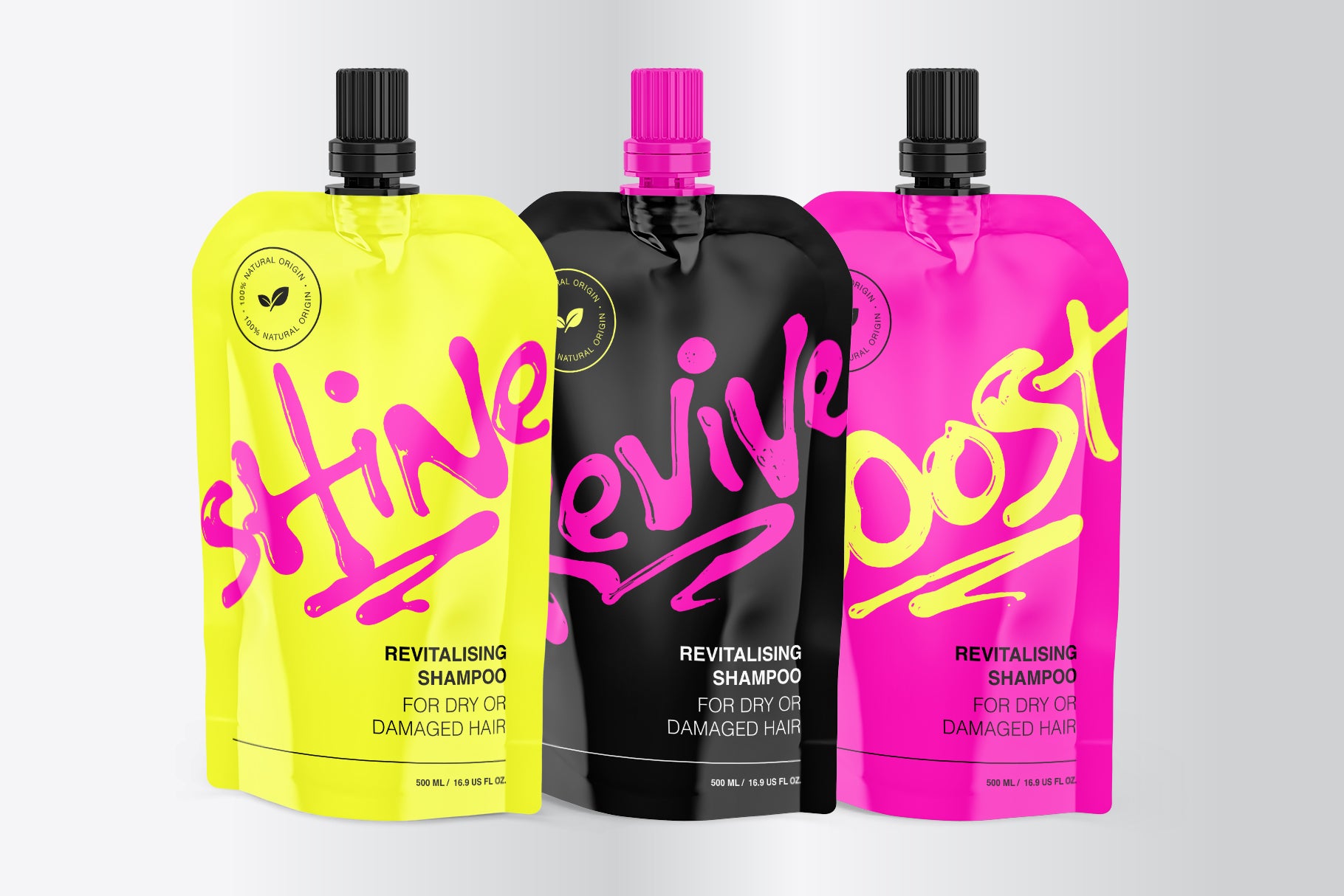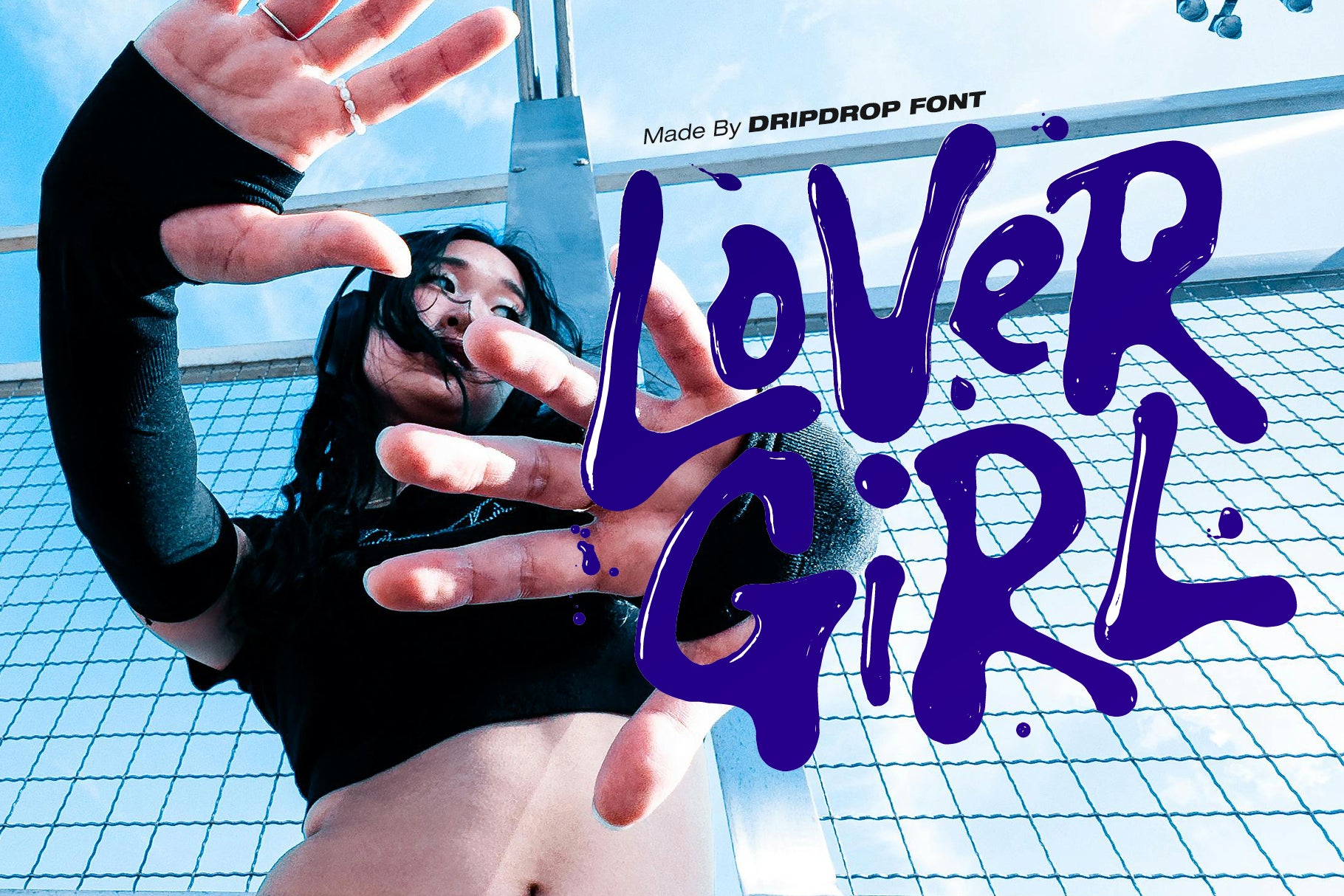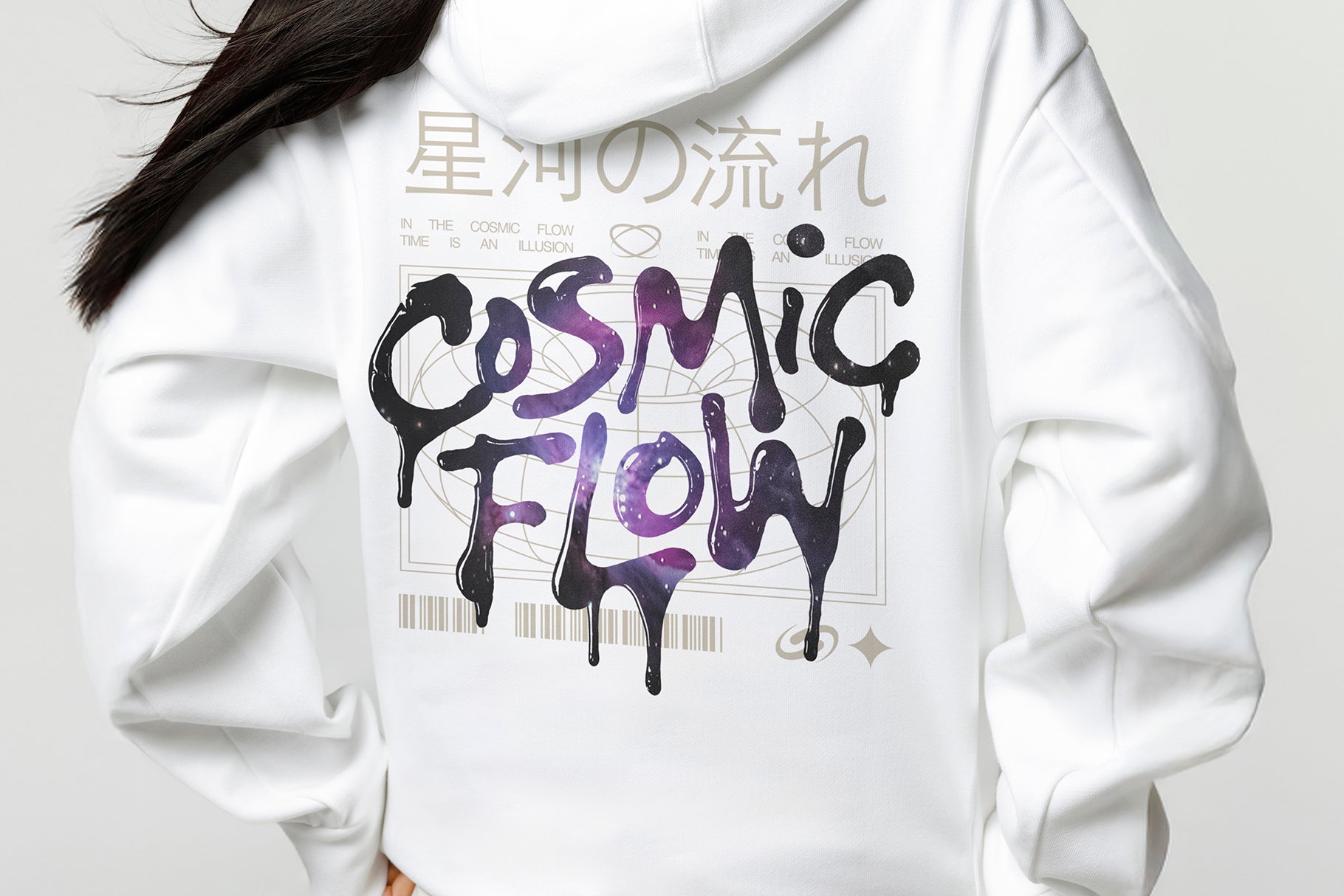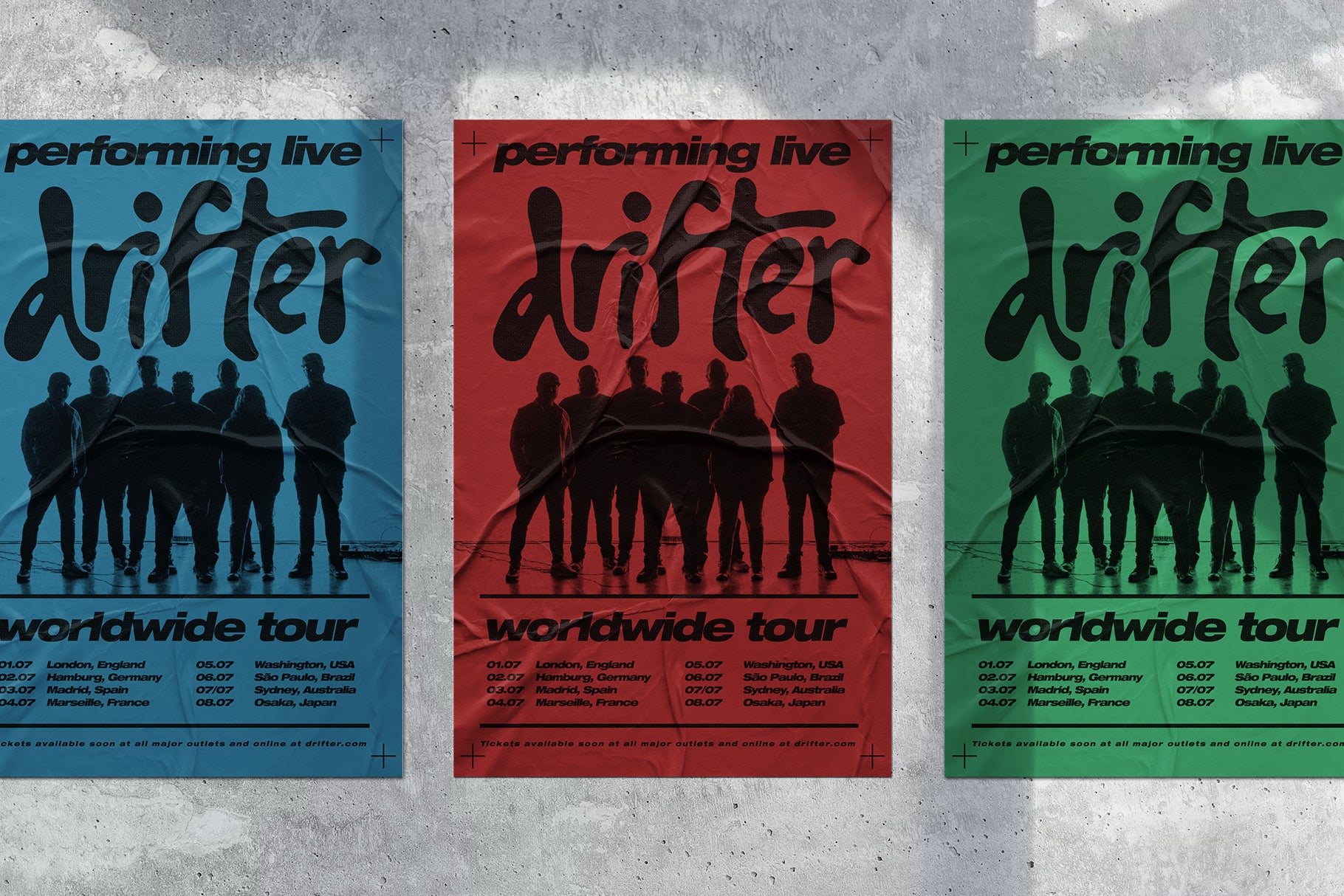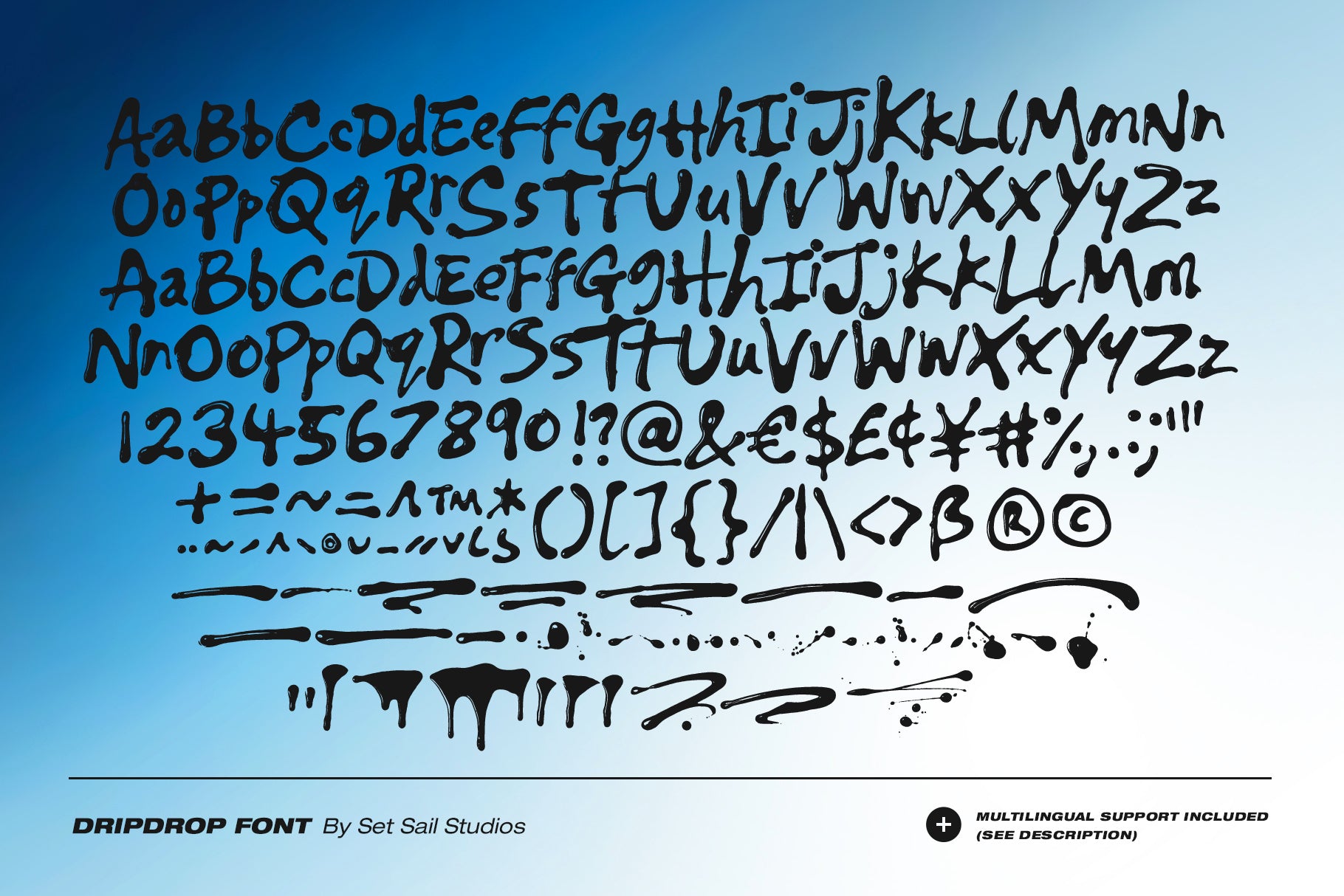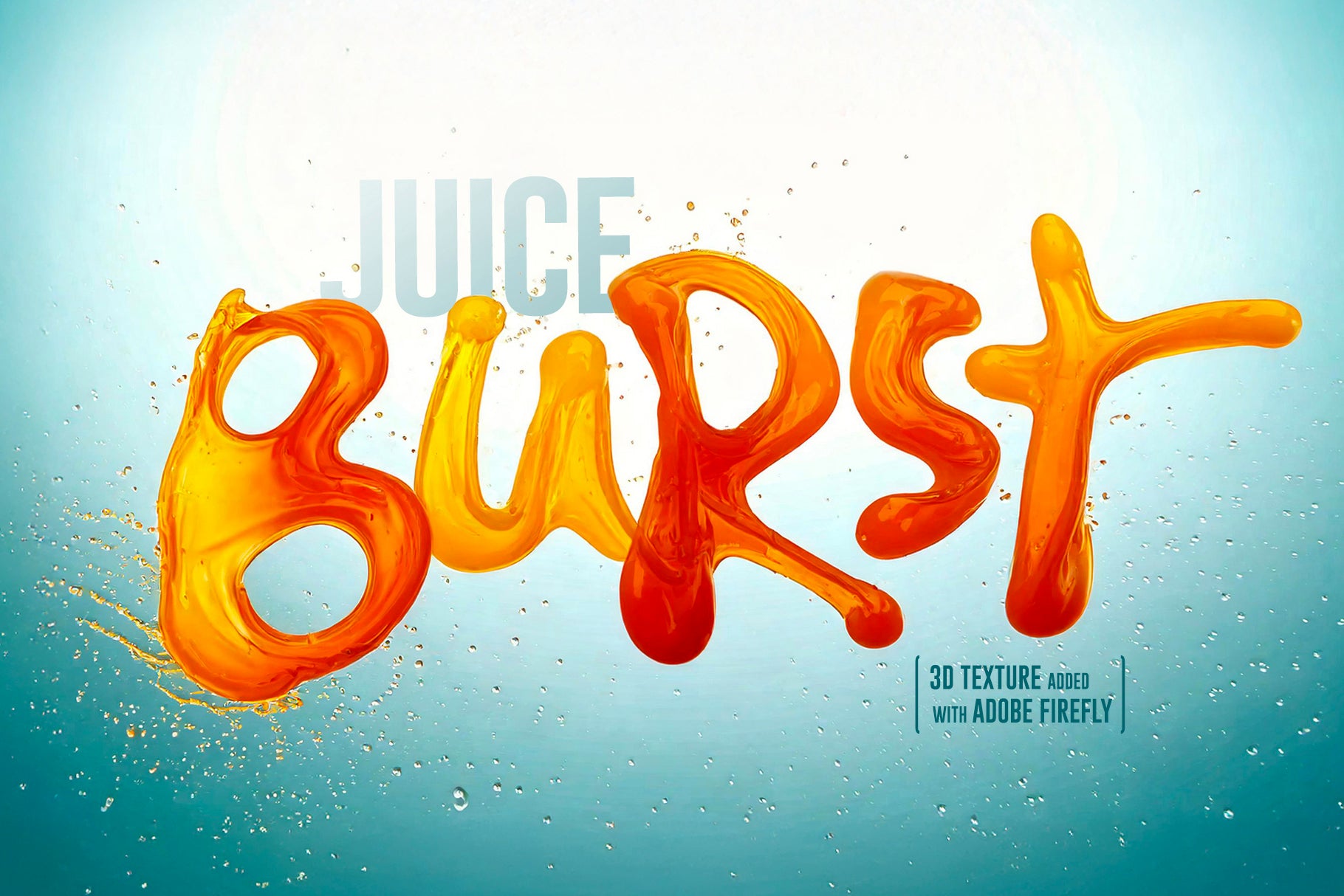
Dripdrop Liquid Font Set
The Dripdrop Liquid Font Set includes 6 unique fonts crafted with real liquid ink, featuring a variety of styles such as the original Dripdrop Font, Dripdrop Alt Font, and Dripdrop Extras Font, along with solid versions for each. This set supports multiple languages and includes a total of 43 decorative elements like underlines and splats to complement your text.